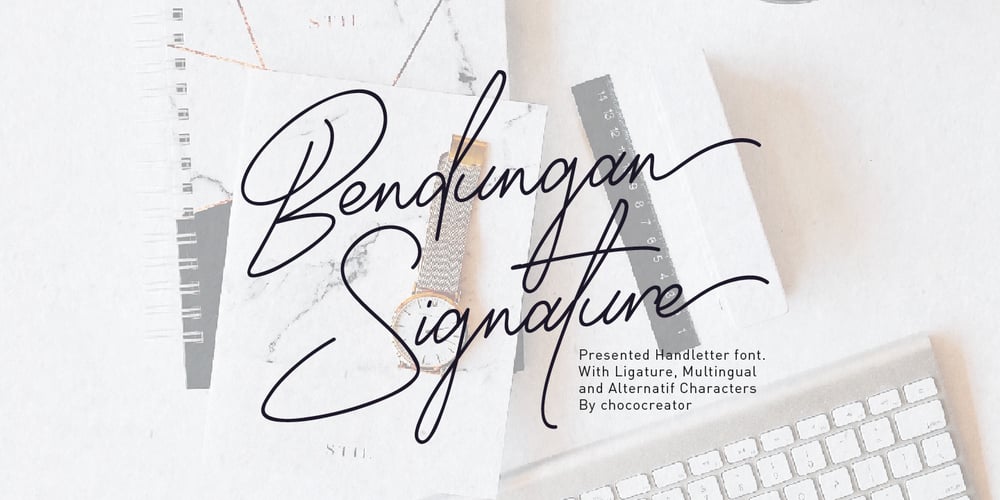
Bendungan Signature Font Family was designed by Sutrisno Al Rasyid and published by Chococreator. Bendungan Signature contains 1 styles and family package options. Bendungan Signature Handwritten is a Beauty and Minimalist font with beautiful ligature, character specials and multilingual support. This is a very versatile font that works well in large and small sizes. Bendungan Signature Handwritten is perfect for branding projects, Logo designs, Clothing Branding, product packaging, magazine headers, or just as a stylish text overlay for any background image.Features: Ligature The A-Z alternative Numbers & Punctuation Accented characters HOW TO ACCESS ALTERNATIVE CHARACTERSOpen the glyph panel: In Adobe Photoshop, open Window – glyphs In Adobe Illustrator, open Type – glyphs